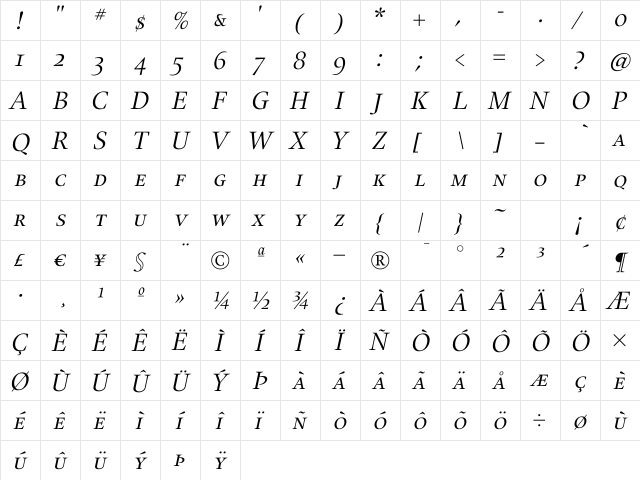
Alias UnionSC Regular Italic Regular
Design Context for Alias UnionSC Regular Italic Typeface
Alias UnionSC Regular Italic is a composed and adaptable typeface that performs quietly and consistently across a wide range of design contexts. The dynamic lean of this cut emphasises speed and emphasis in any layout.
Pro Tip: Try Alias UnionSC Regular Italic for annotation and caption copy alongside an upright companion — the contrast in angle creates a dynamic but ordered typographic system.